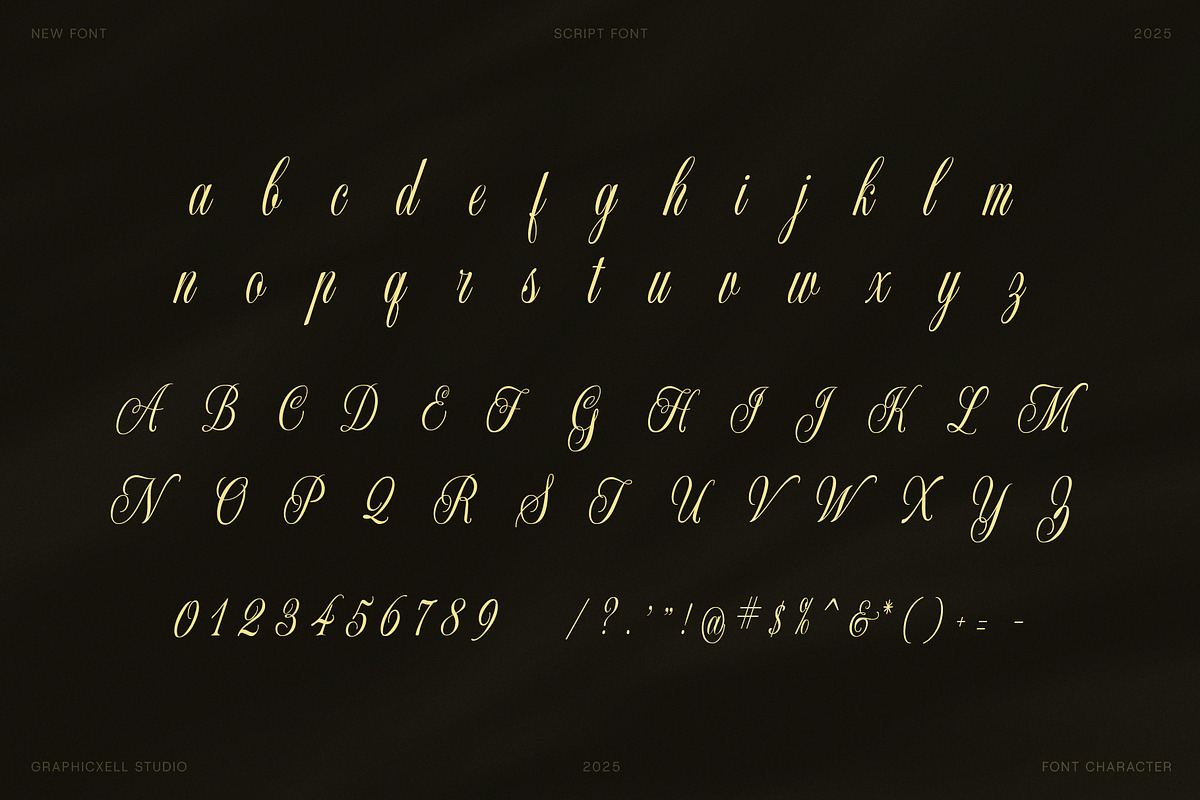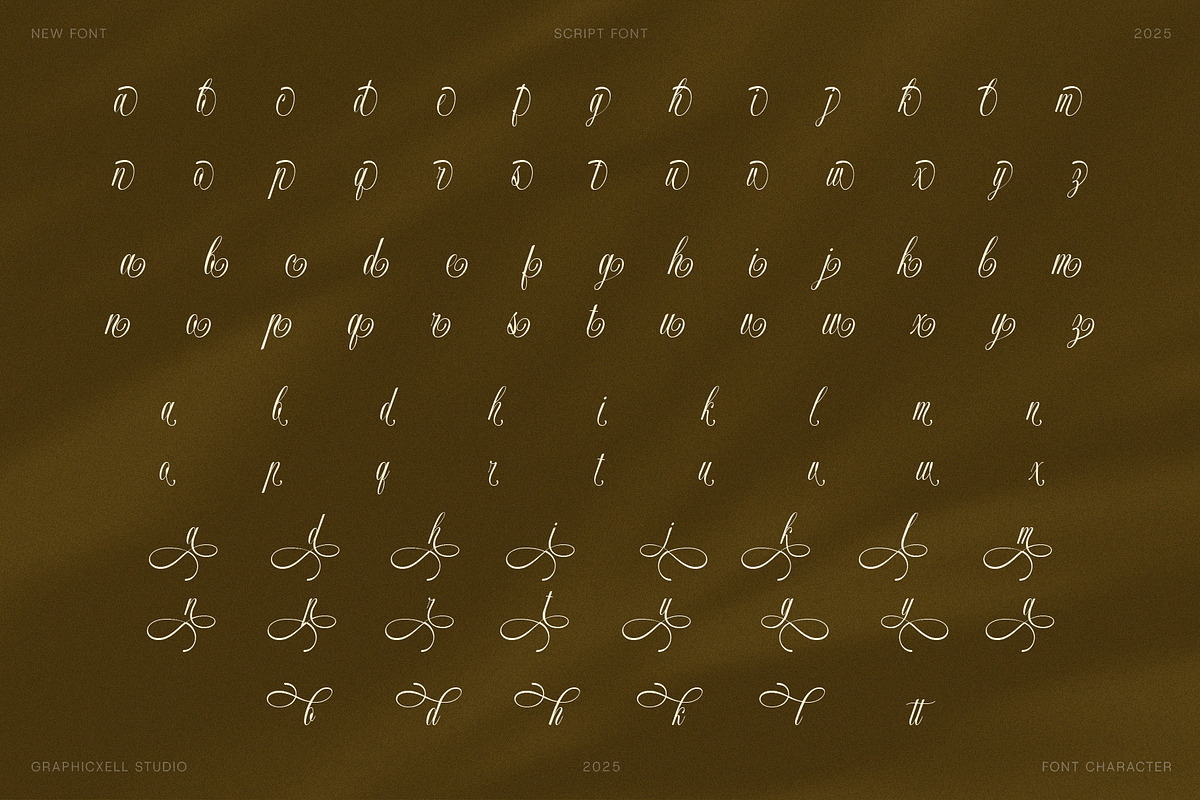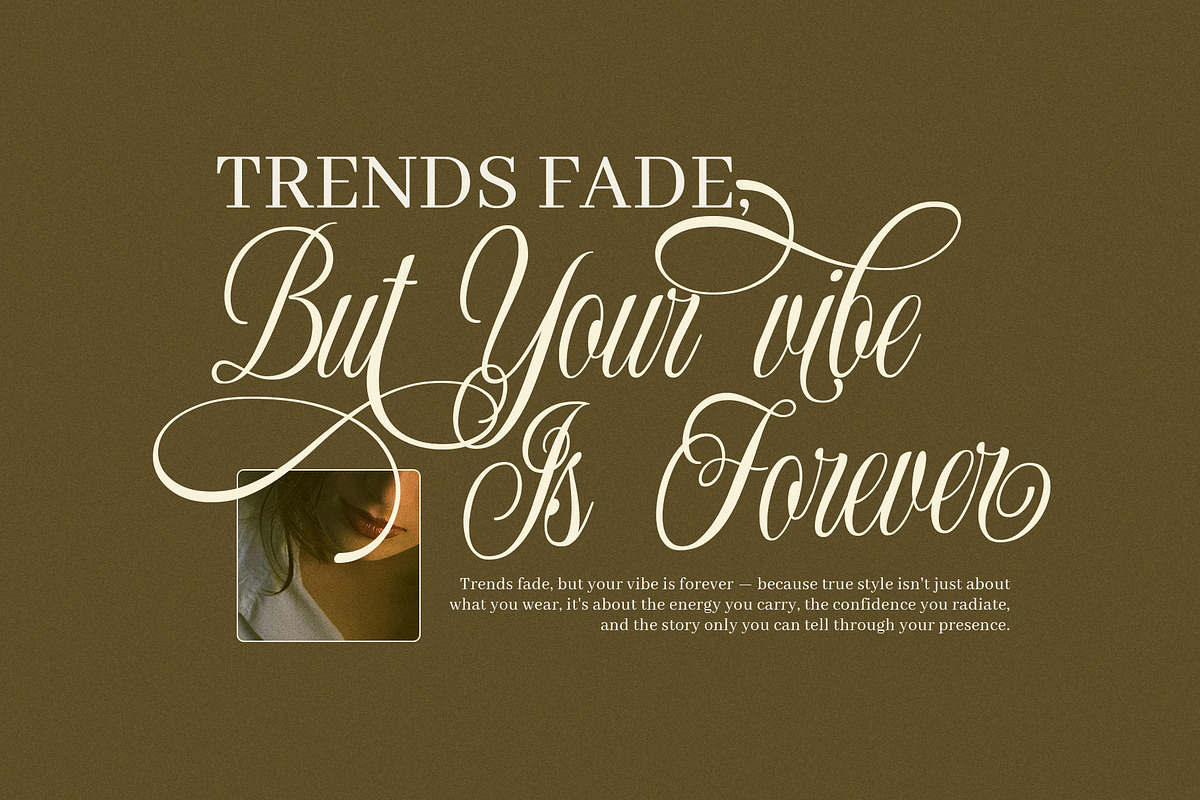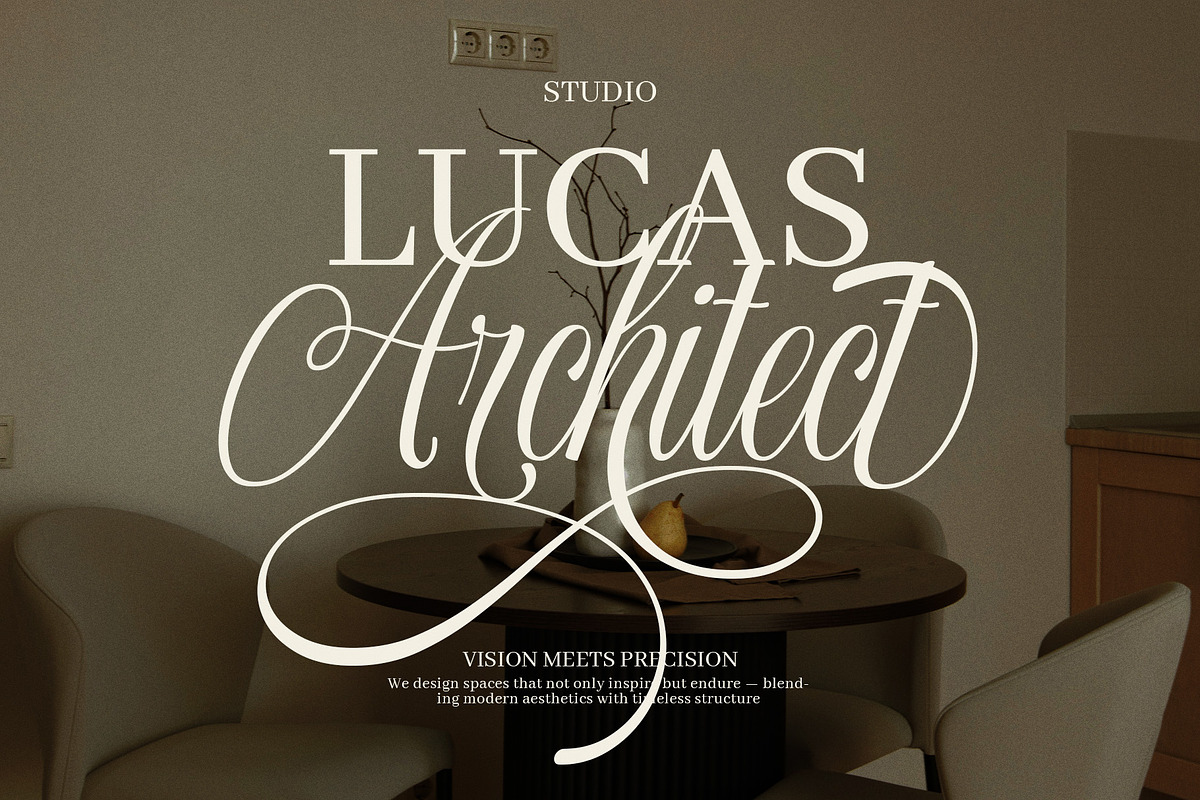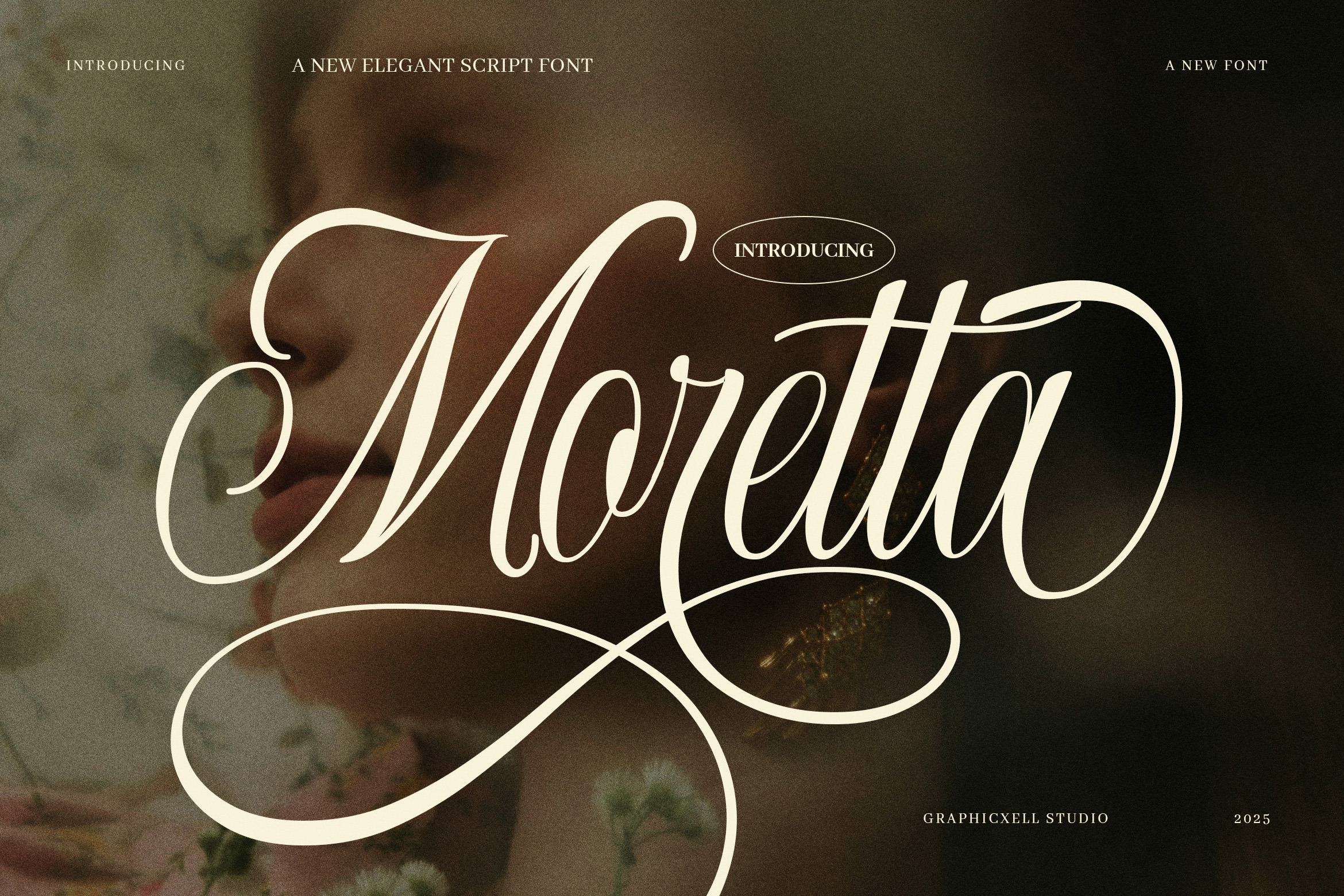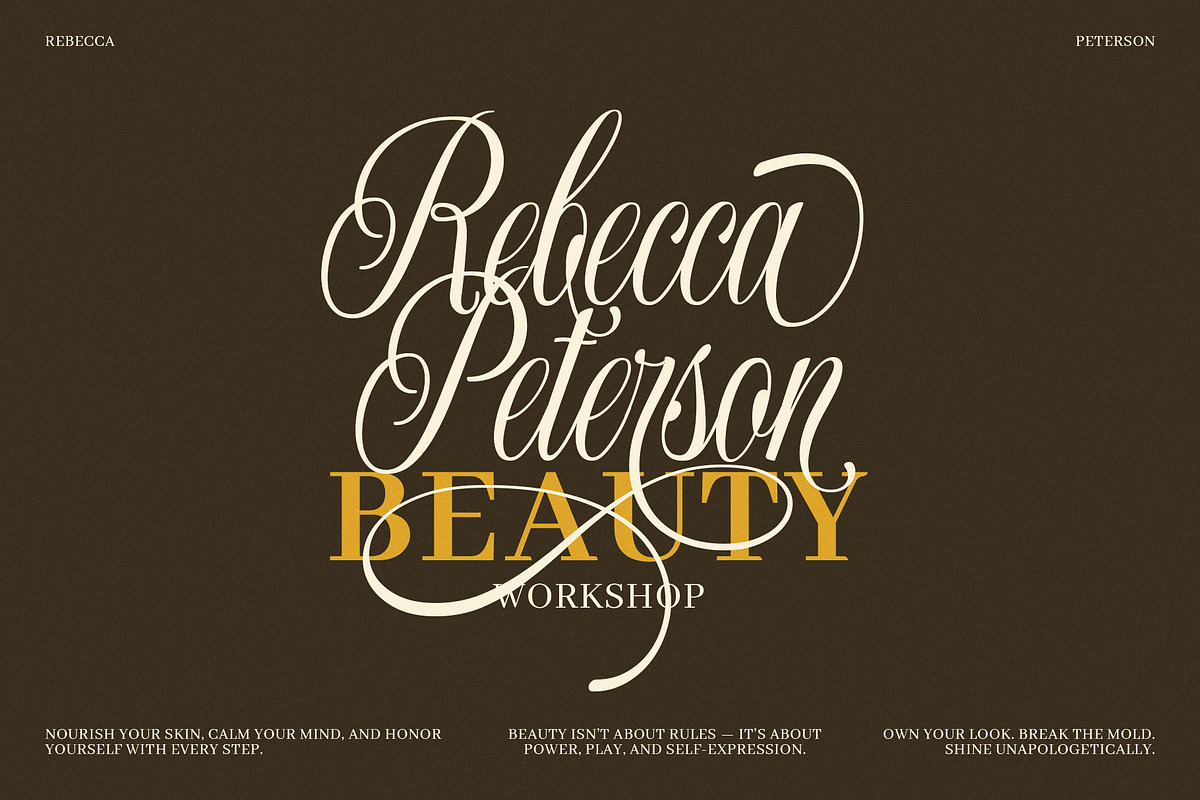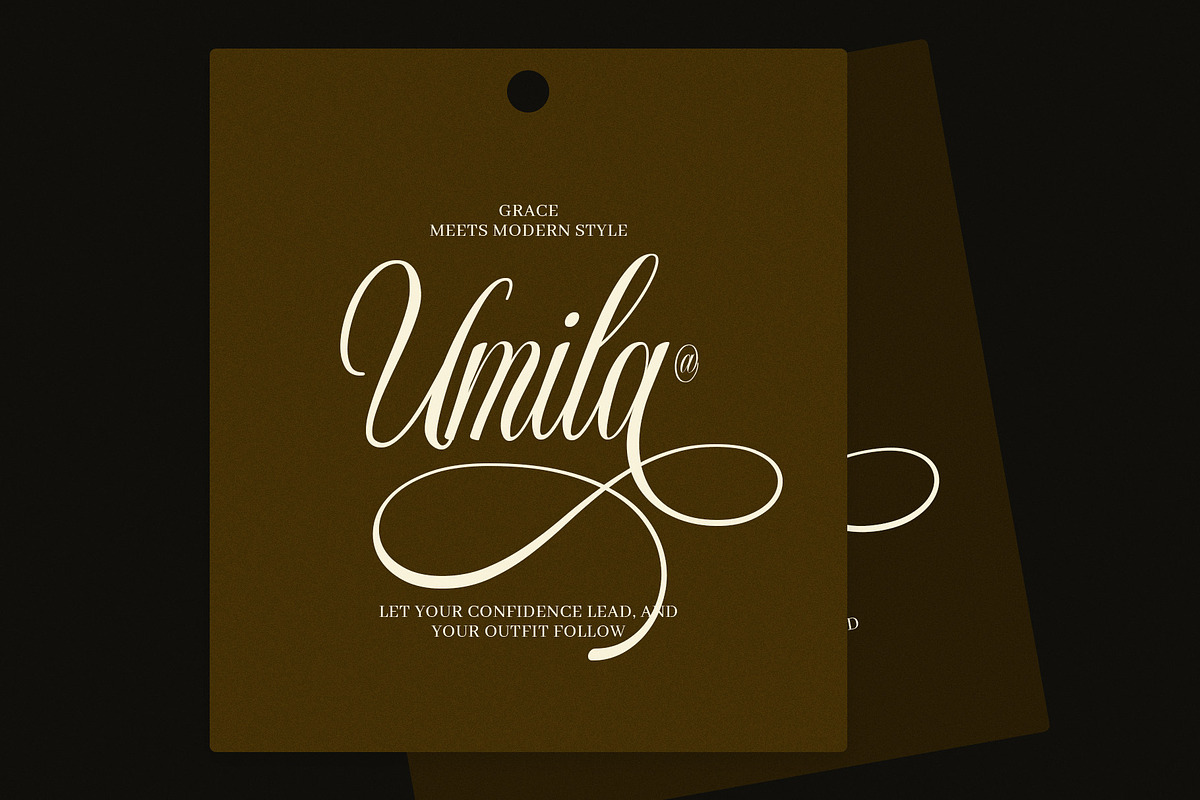
Moretta Elegant Script Font
Moretta is an elegant script font with graceful curves, flowing swashes, and timeless beauty. It carries a refined style that feels romantic, feminine, and effortlessly luxurious. Because of its smooth rhythm and gentle movement, Moretta adds a soft, expressive tone to every design it touches.
The letterforms are tall, balanced, and carefully shaped, which helps the script stay readable while still looking artistic. Each stroke moves with a natural sense of flow, and each curve appears intentional. Moreover, Moretta includes an extensive set of swashes and alternates, allowing you to customize your words in many unique ways. You can create long, sweeping flourishes or subtle, minimal accents depending on the mood you want to convey.
Moretta fits beautifully in branding that needs elegance and personality. It works especially well for boutique identities, fashion labels, beauty products, perfume packaging, wedding stationery, editorial layouts, and lifestyle branding. When paired with a classic serif or a clean modern typeface, it creates a strong and sophisticated visual hierarchy.
Because the font feels poetic and delicate, it easily transforms simple text into meaningful expression. Additionally, the alternate characters offer flexibility, so you can craft distinctive logos, expressive headlines, and graceful monograms with ease. Whether you need something soft and romantic or bold and stylish, Moretta adapts well to both moods.
Ideal for:
Branding & Logo Design
Wedding Invitations
Editorial Titles
Fashion & Beauty Promotion
Instagram Quotes & Social Stories
Boutique Store Identity
In short, Moretta brings elegance to the forefront and helps every word feel intentional, graceful, and memorable.